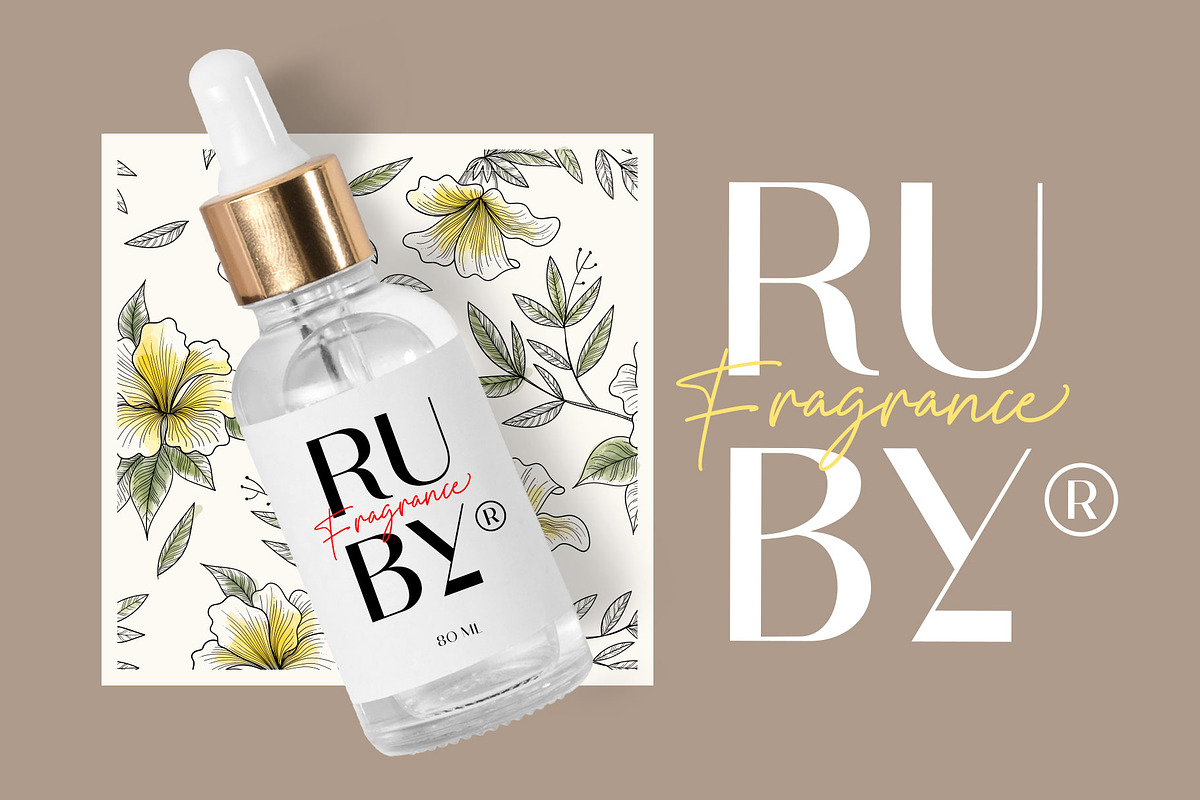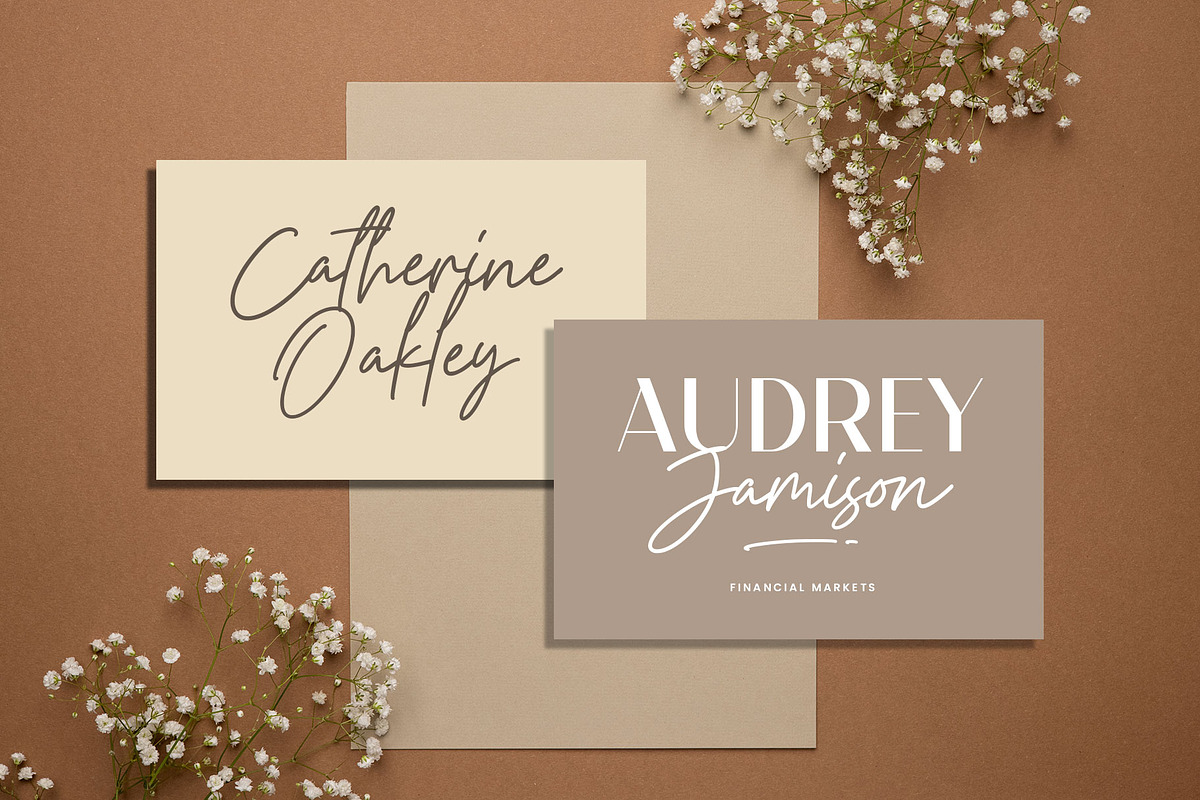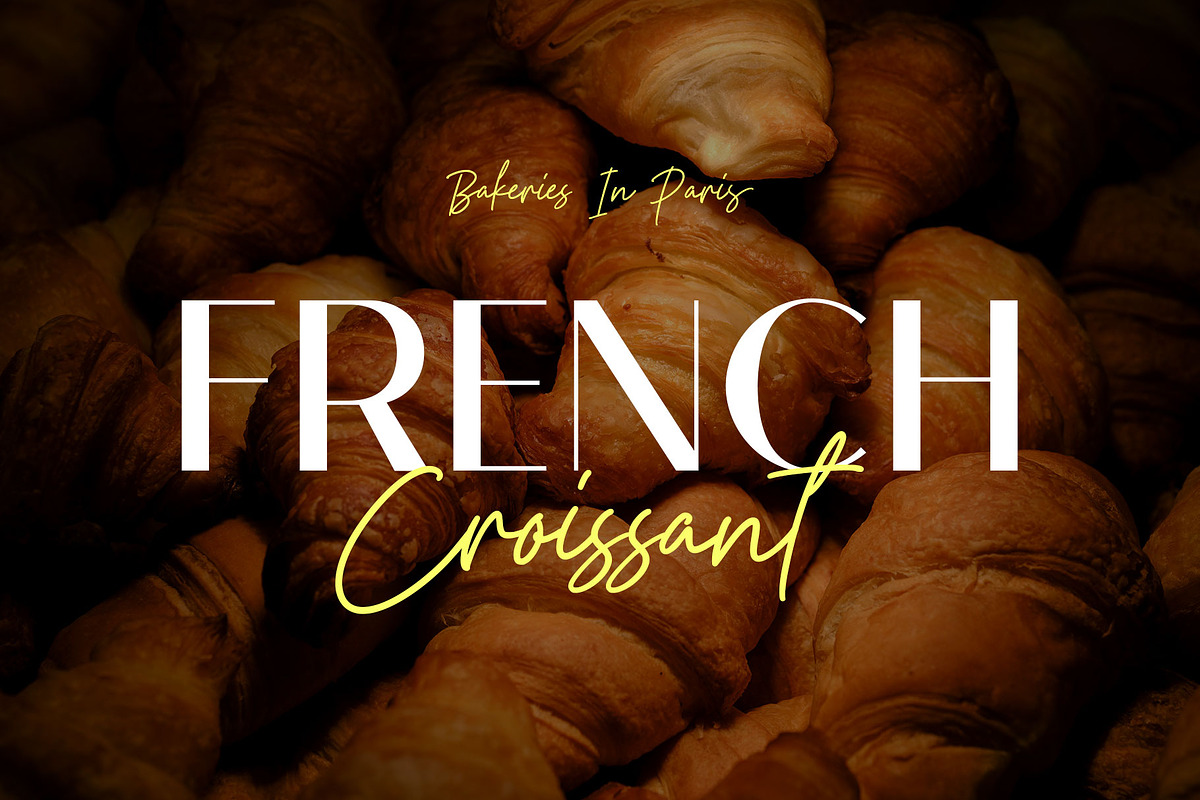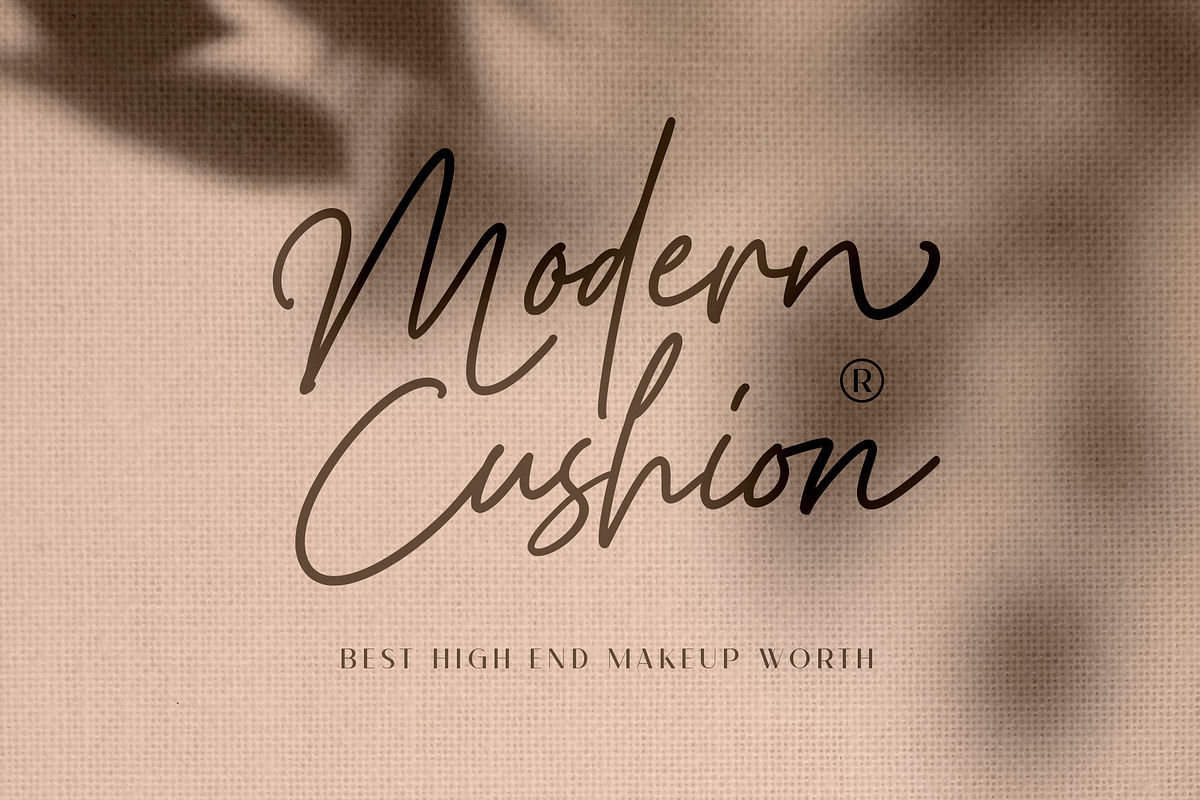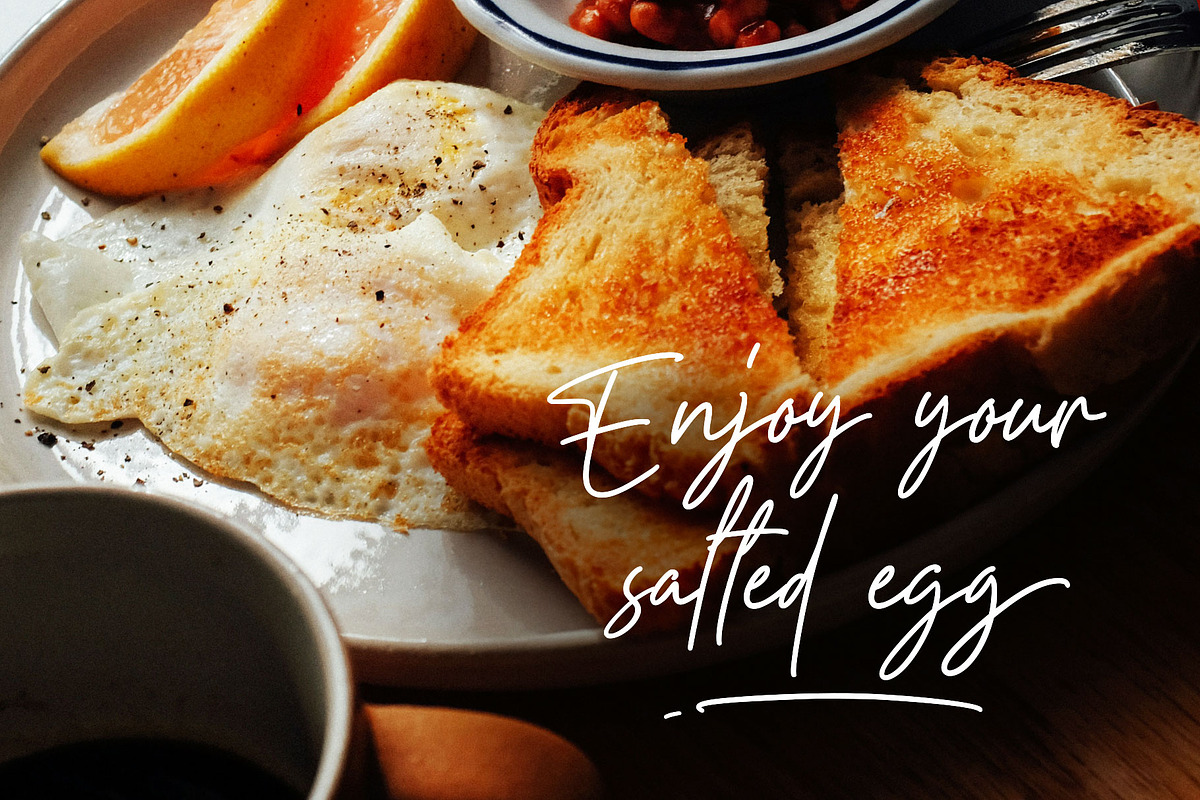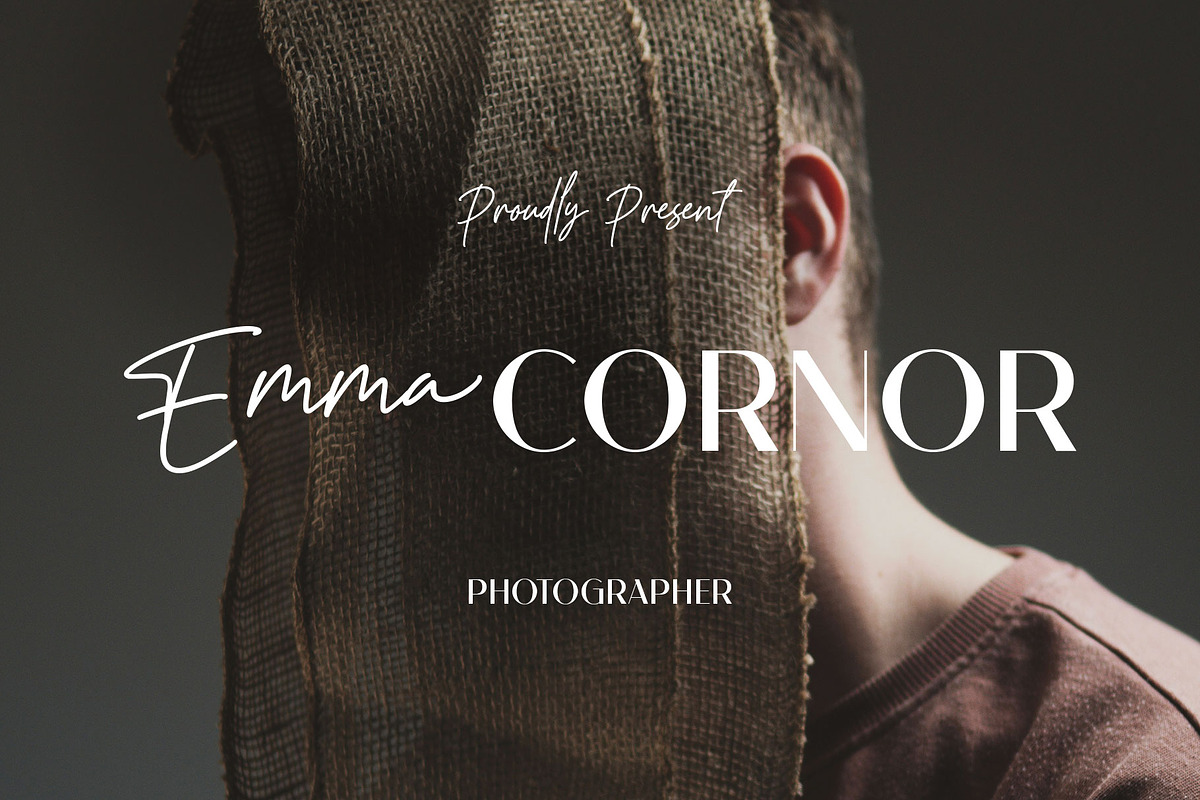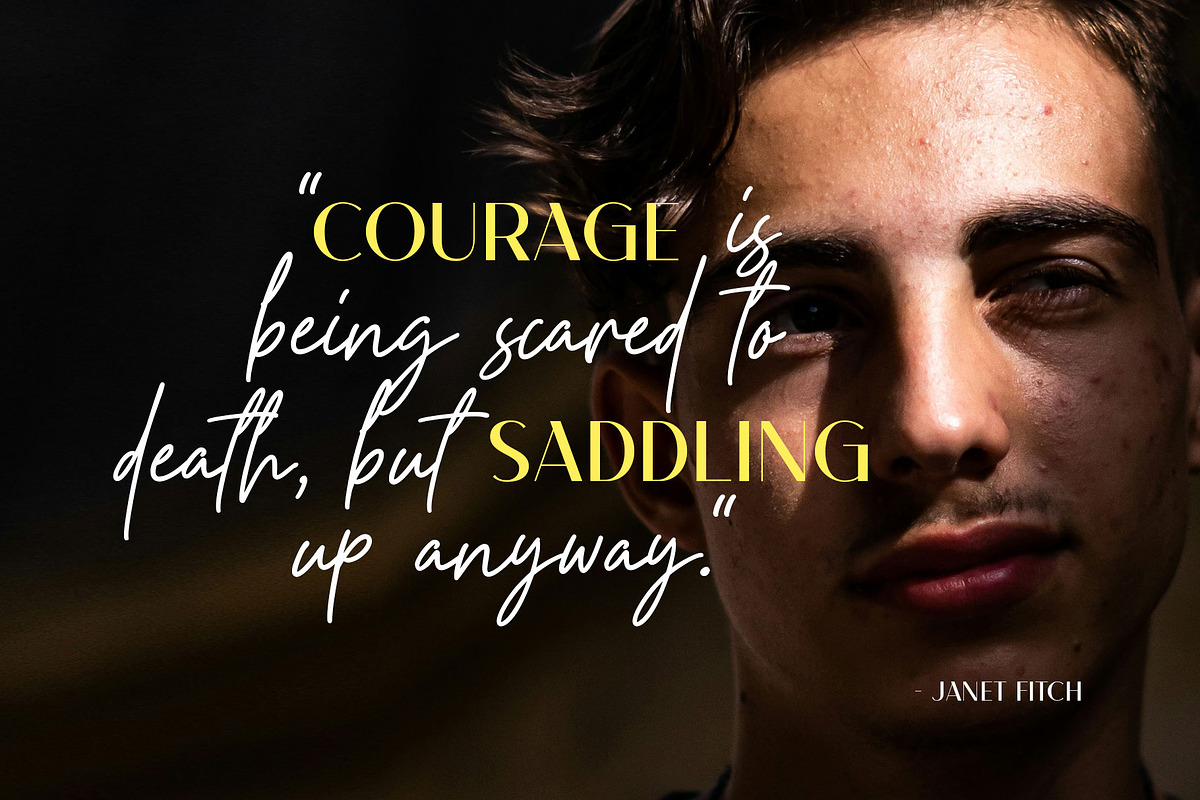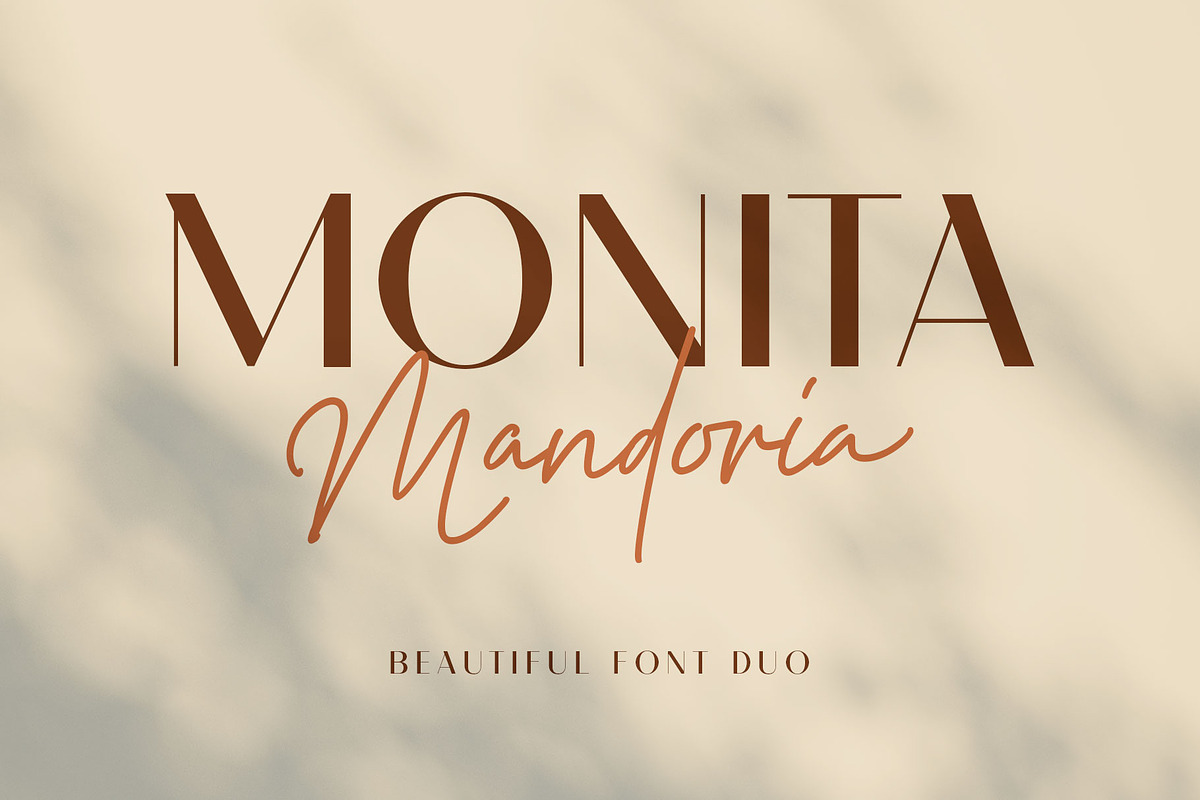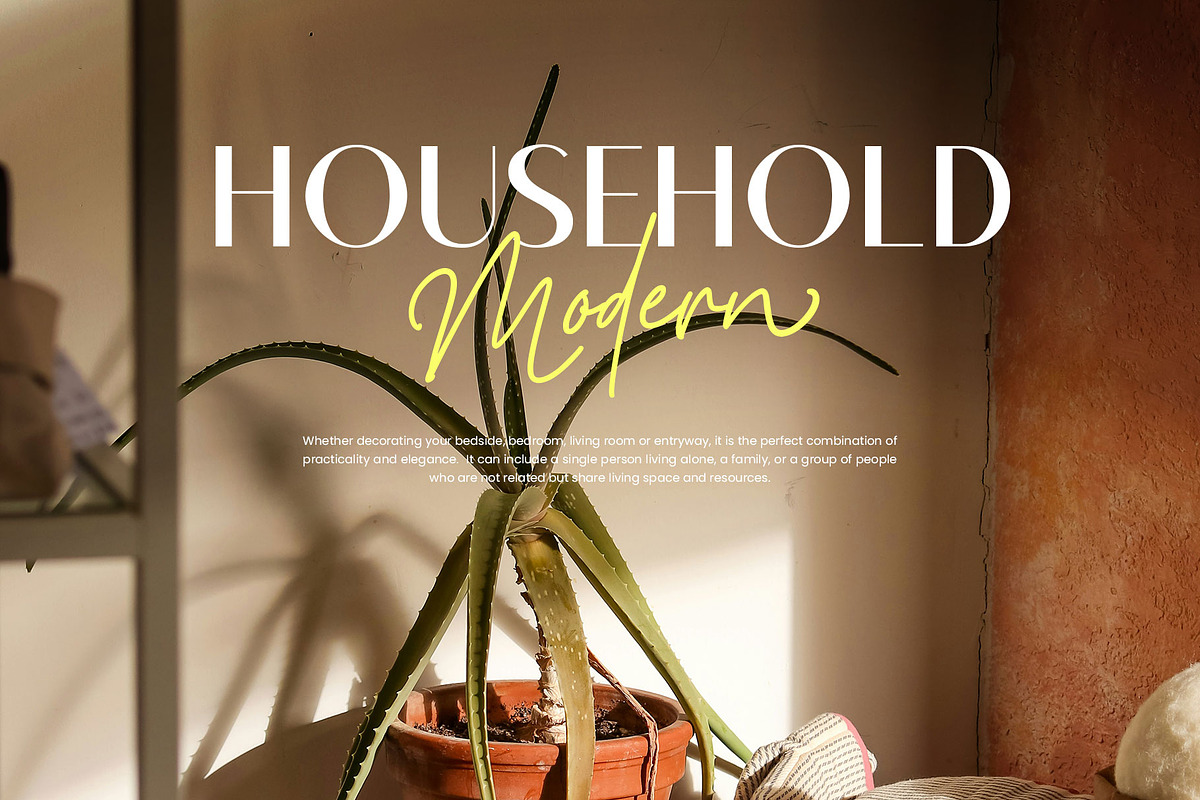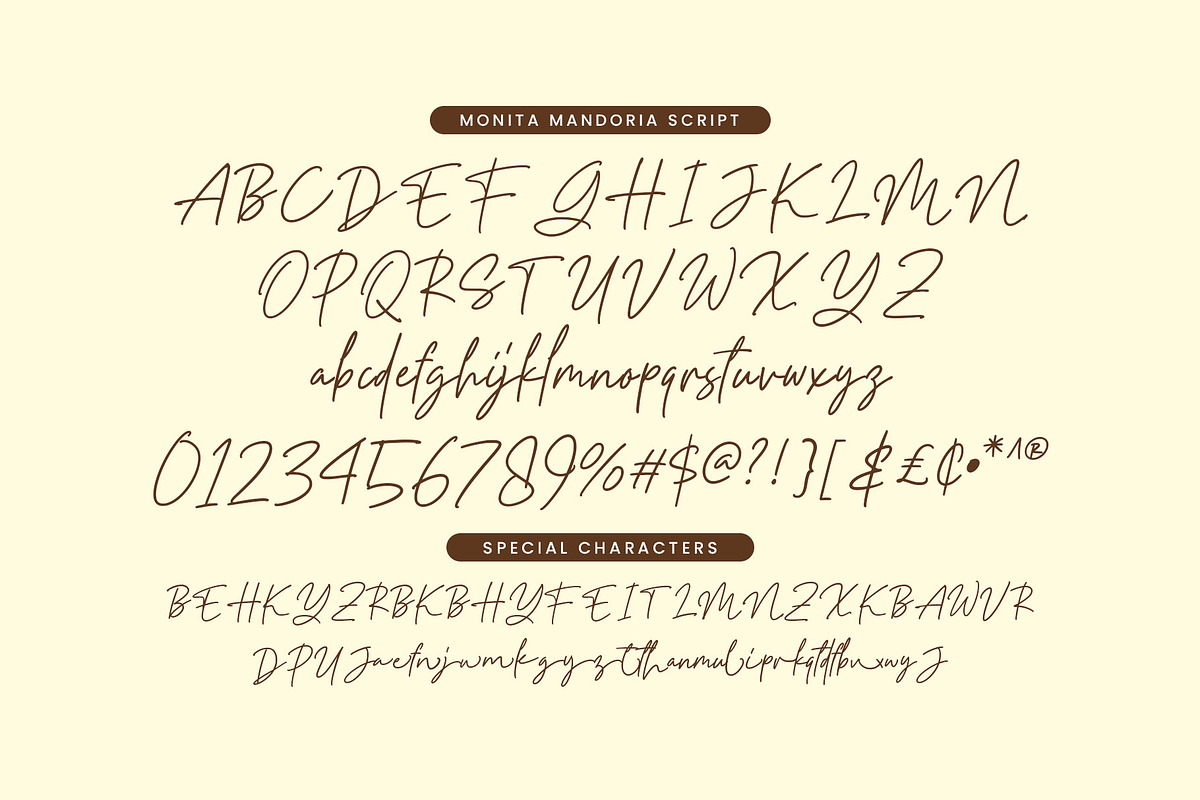
Monita Mandoria
Introducing Monita Mandoria a beautiful combination font of Sans and Signature. A classy font pair for your elegant design which visualizes luxurious, minimal, and unique.
Sans serif fonts are designed with very high contrast, giving a dynamic and classy impression, while Signature fonts with beautiful stroke flow, give a natural and elegant feel.
You can use this font duo with a lot of exploration and layout possibilities, also complete with special characters included. Monita Mandoria is perfect for branding, quotes, weddings, packaging, cards, logo, fashion, and furniture!
- Stylistic alternates